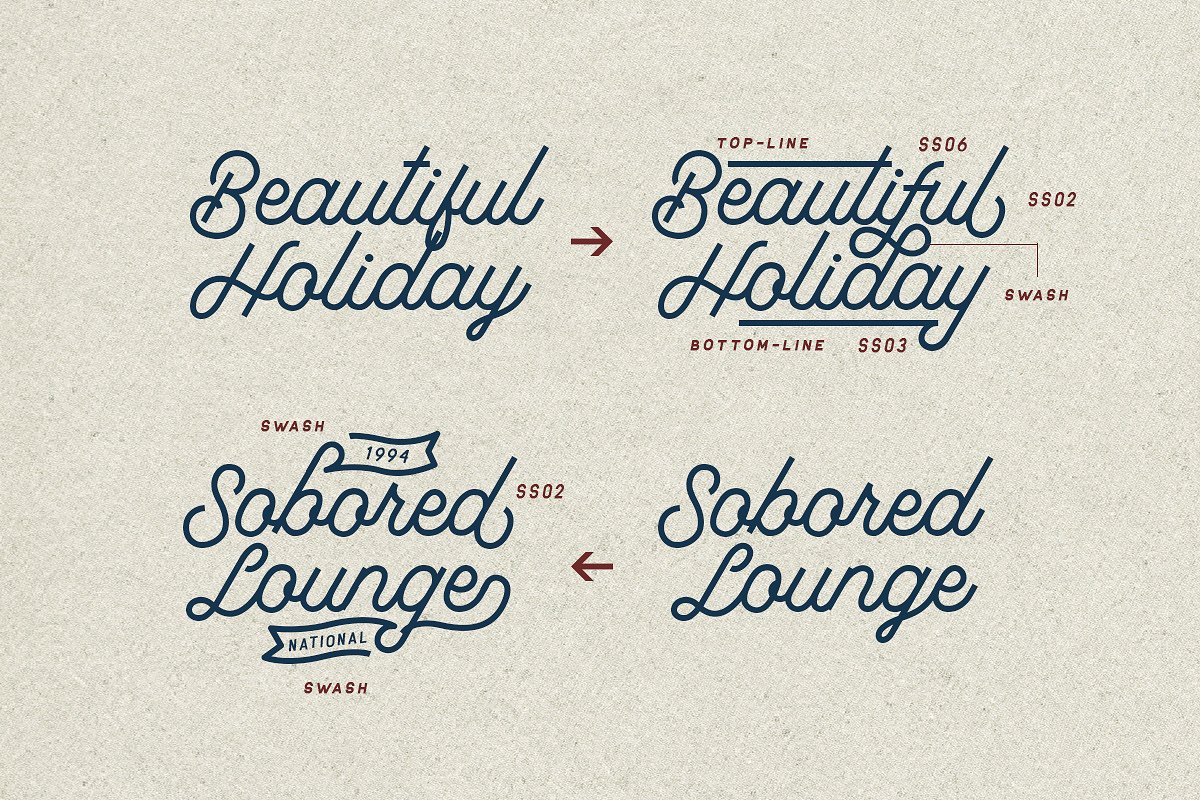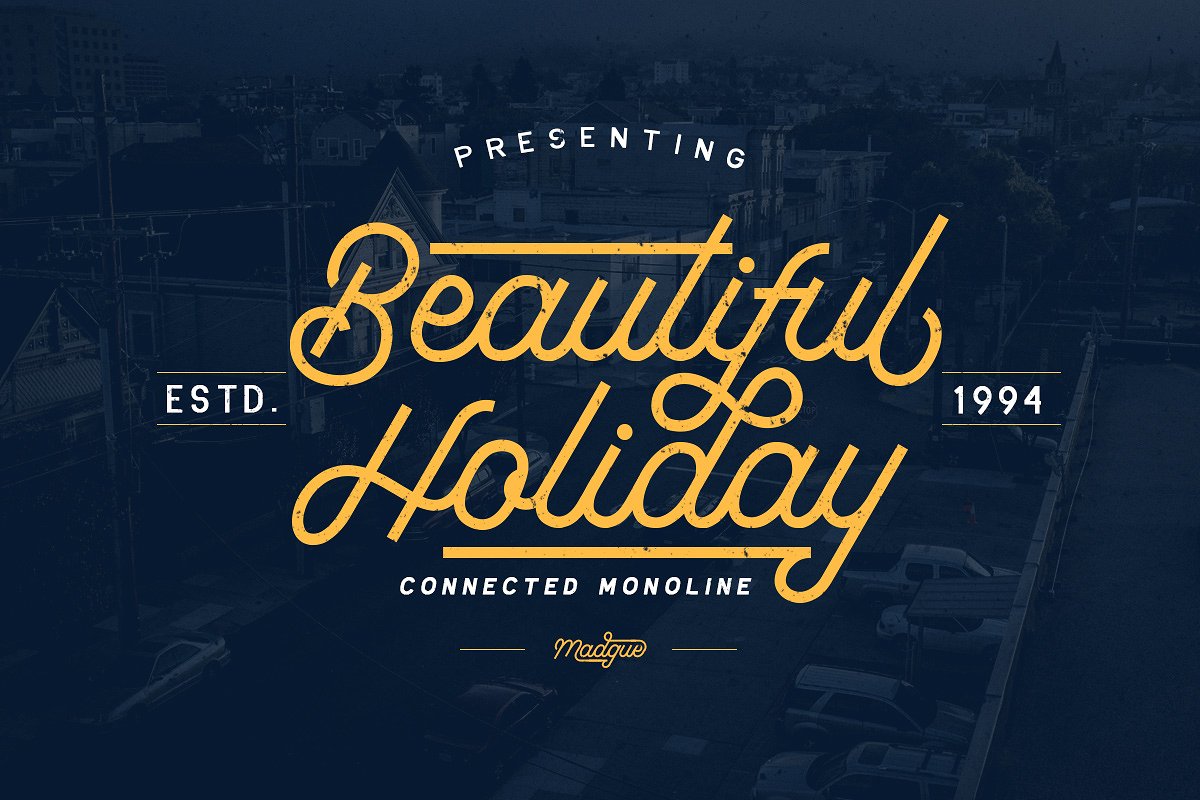
Beautiful Holiday
Beautiful Holiday Font
Madgue – Connected Monoline Font
This is unique monoline for you. You can use this font for making an awesome logo or whatever you want. Also this font contain ligatures, so many stylistic alternate , swash. This font is also support multi language.